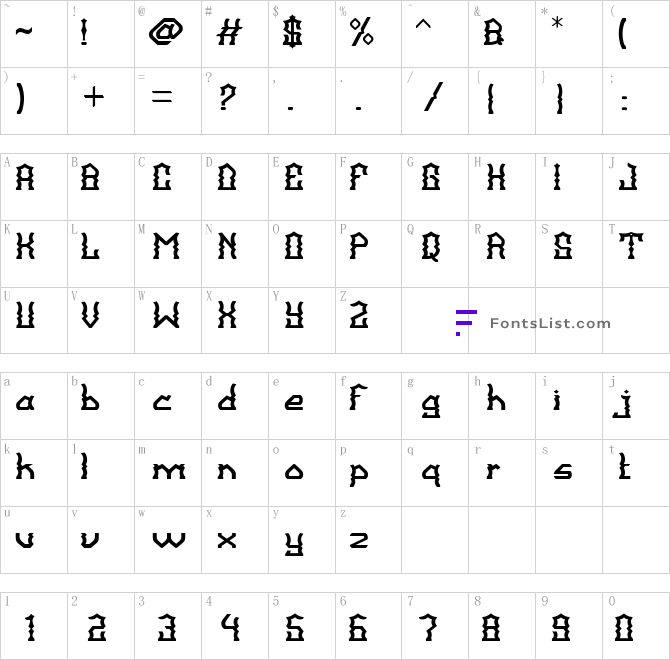
- Font Name:Balangkarta
Balangkarta-Font.ttf is a very beautiful artistic font, Balangkarta-Font.ttf is widely used in the design and printing of various books and pictures,Balangkarta-Font.ttf has a strong visual impact,Balangkarta-Font.ttf is a commonly used font in newspapers, magazines and books, and is used in posters, e-commerce Poster design, store design, logo design, font design and other fields.Balangkarta-Font.